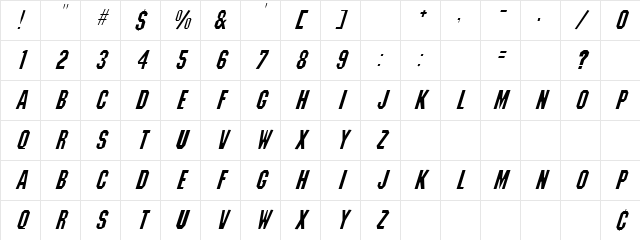
Savanarola Italic Regular
Design Context for Savanarola Italic
Savanarola Italic is a composed and adaptable typeface that performs quietly and consistently across a wide range of design contexts. The slanted form adds forward momentum and visual energy.
Pro Tip: Use Savanarola Italic for emphasis, pull quotes, and subheadings where its slanted energy can add rhythm to the layout.